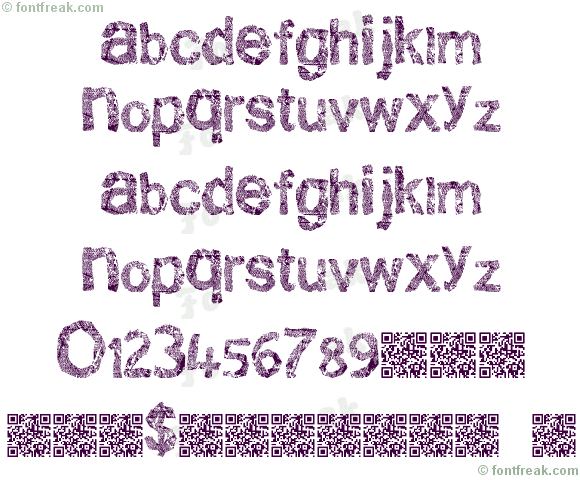
CleanScratch
CleanScratch by XEROGRAPHER FONTS is a unique display font that captures a hand-drawn aesthetic, making it an excellent choice for projects requiring a personal touch. This font features a distinctive texture that mimics the look of scratchy, imperfect lines, giving it a raw and organic feel. The stroke weight varies slightly, contributing to its artistic flair, while the overall design maintains a balanced spacing that enhances readability.
The visual characteristics of CleanScratch are characterized by its irregular edges and slightly uneven baseline, evoking a sense of spontaneity. This makes it ideal for creative applications where a casual, approachable vibe is desired. The font's decorative elements, while minimal, add to its charm without overwhelming the overall design.
CleanScratch excels in a variety of use cases. It is particularly well-suited for wedding invitations, where a touch of whimsy can elevate the design. Additionally, it can be effectively used for movie posters that aim to convey a sense of authenticity or indie spirit. Restaurant menus can also benefit from its inviting appearance, attracting diners with its friendly look. Content creators will find it useful for social media graphics, as it stands out while remaining legible.
The target audience for CleanScratch includes graphic designers looking for versatile typefaces, small business owners aiming to create a memorable brand identity, and content creators seeking to enhance their visual storytelling.
What sets CleanScratch apart is its ability to blend a playful essence with practical functionality. This font invites creativity, making it a standout choice for anyone in need of a unique, expressive typeface. Don’t miss the opportunity to explore the CleanScratch font free download and elevate your design projects with this exceptional typeface.